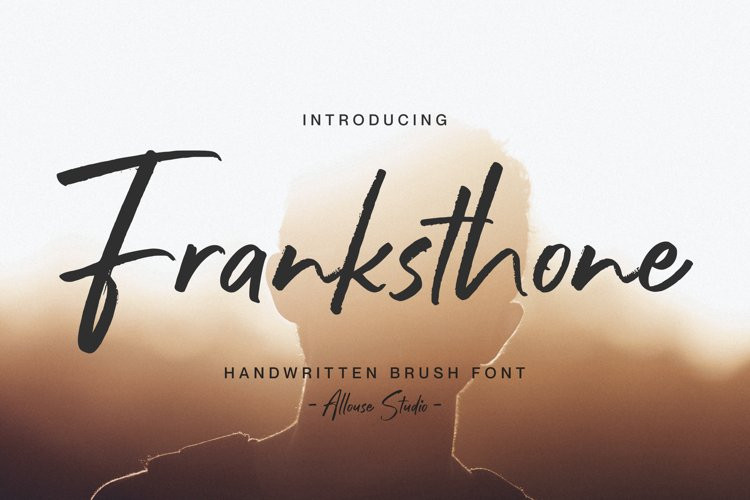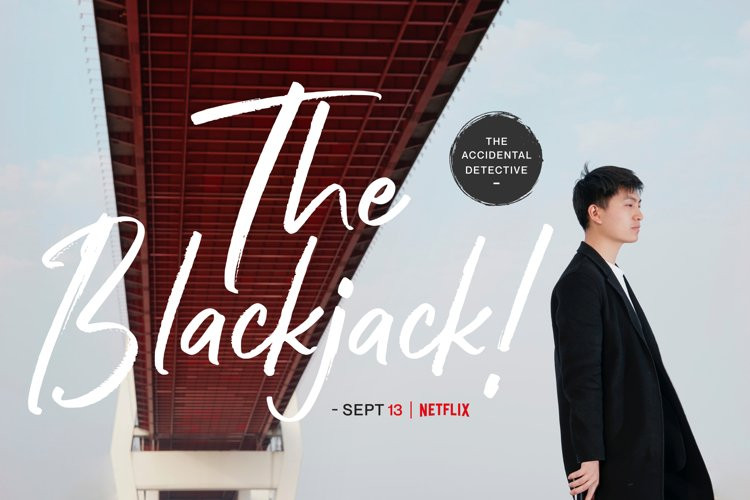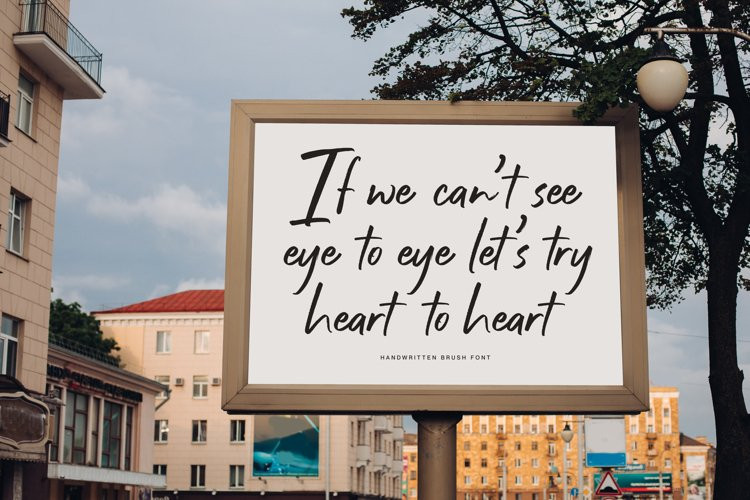
Franksthone Font
Franksthone FontFranksthone is perfect for product packaging, branding project, megazine, social media, wedding, or just used to express words above the background.